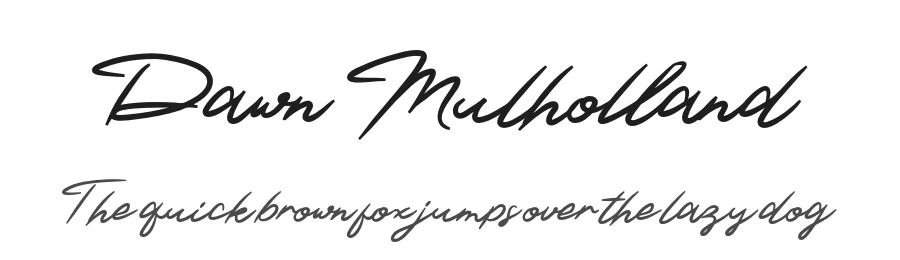
About Patrick Tonight Font
Patrick Tonight Specifications
| Font Family | Patrick Tonight |
| Full Name | Patrick Tonight |
| Glyph Count | 265 glyphs |
| PostScript Name | PatrickTonight |
| Designer | Glorytype |
Patrick Tonight ships with 2 OpenType features you can switch on in apps that support them (Illustrator, InDesign, Affinity, Figma, CSS font-feature-settings).
Patrick Tonight supports 222 languages.
Patrick Tonight Font is a script font that shines as a display or heading face. Pair it with a clean sans-serif or serif font for body text β the contrast creates a clear hierarchy while the two styles stay balanced and easy to read.
Patrick Tonight Font